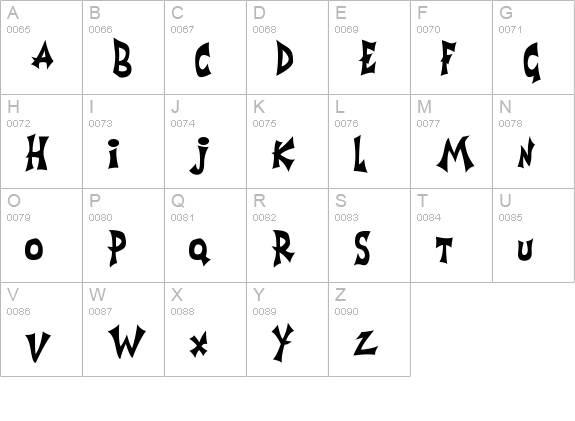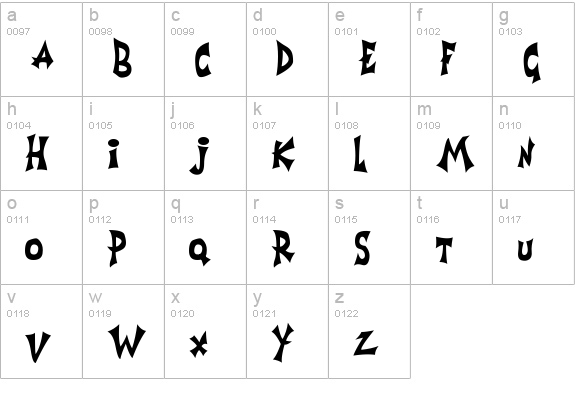
Horrorshow New is a free for personal use font in the Theme > Horror category, designed by Darrell Flood. It has been downloaded 121 times and is available for Windows, Mac and Linux.
Introducing Horrorshow, a bone-chilling new font that will send shivers down your spine. With its eerie and unsettling design, this font is perfect for adding a touch of horror to your projects. Each letter is meticulously crafted to evoke a sense of fear and mystery, making it ideal for Halloween-themed designs, horror movie posters, and haunted house flyers.